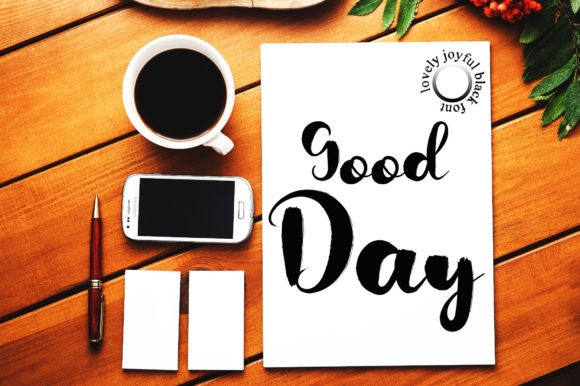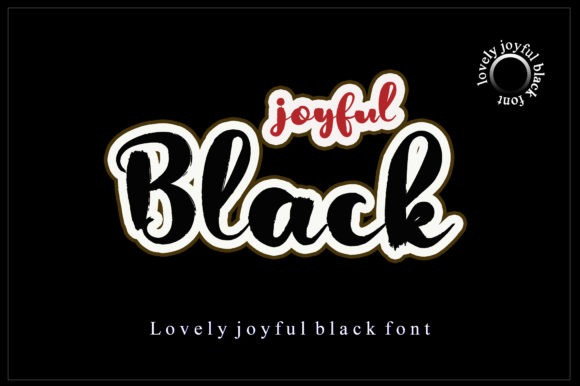
Joyful Black Font
Joyful Black Font is a unique script font. created by using a brush pen. It will boost a wide range of design projects to the highest level, be it branding, headings, logos, labels, and so much more!